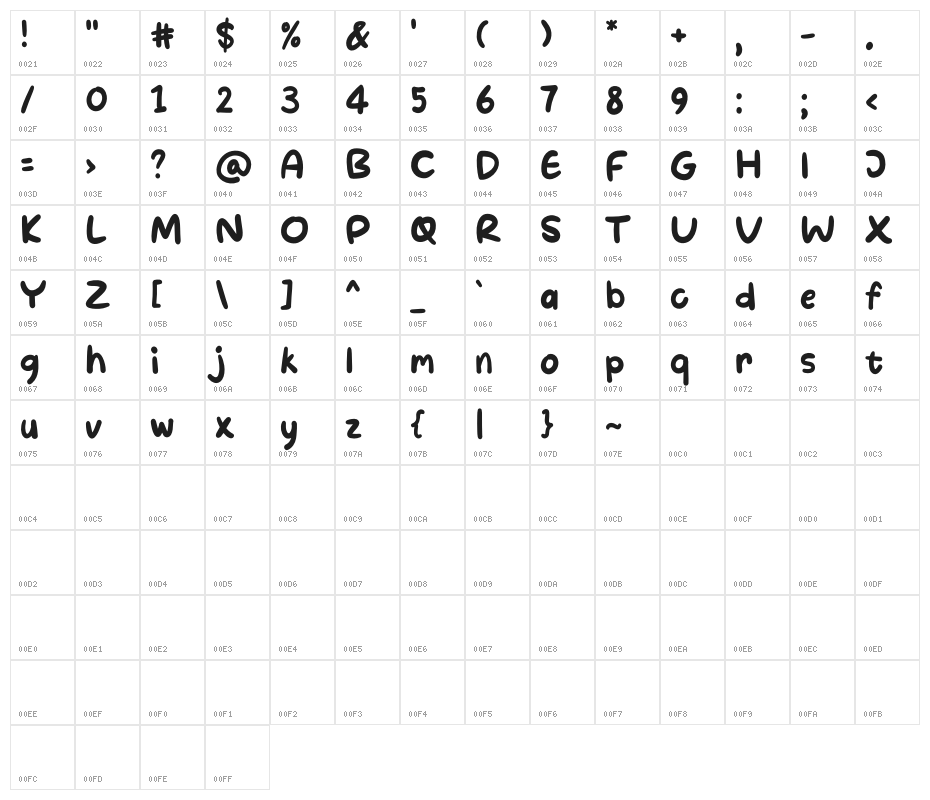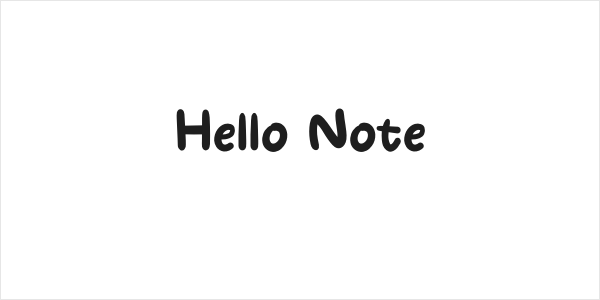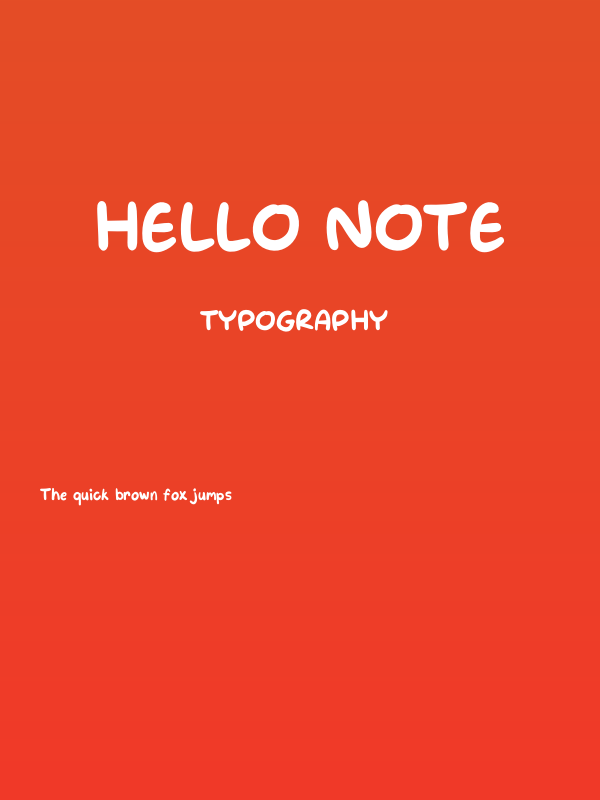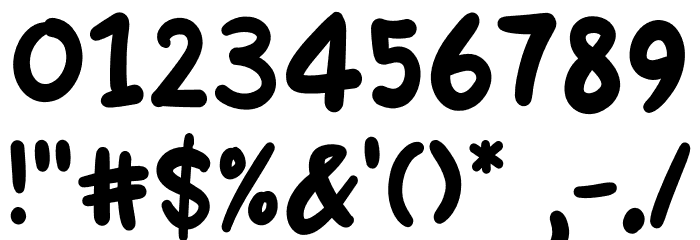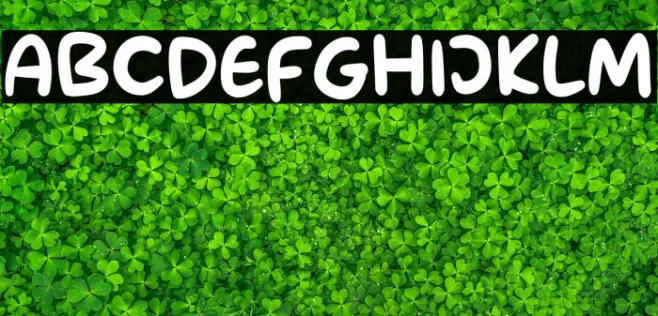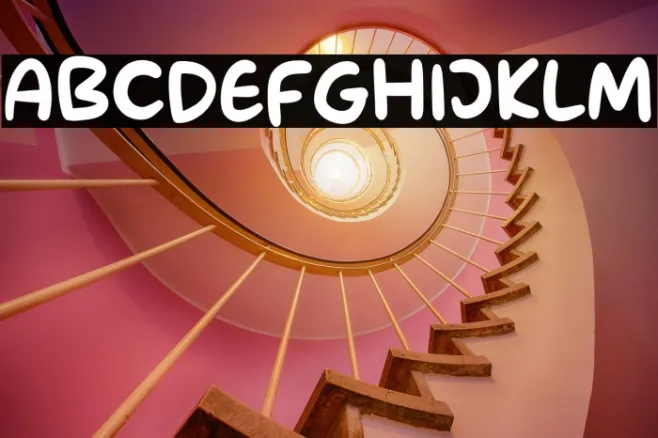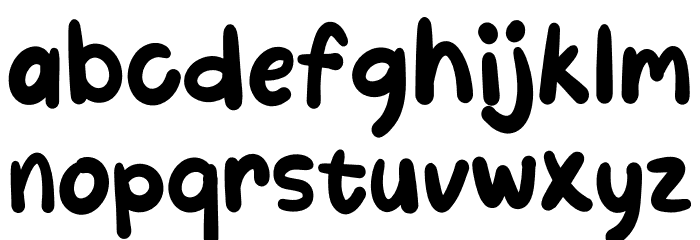
Hello Note Font
Hello Note Description
This playful and rounded font exudes a friendly and approachable vibe, making it ideal for informal and creative projects. The characters are bold and slightly irregular, giving them a hand-drawn appearance that adds a personal touch. The uppercase and lowercase letters maintain a consistent style, with smooth curves and a slightly exaggerated width that enhances readability. The numbers and special characters follow the same design principles, ensuring a cohesive look across all text elements. This font's unique style is perfect for projects that aim to convey warmth and creativity.
| Width | Expanded |
| Overall Style | Playful |
| Use Case | Headlines, Logos, Informal Text |
| Proposed Projects | Children's books, greeting cards, playful branding, and creative social media graphics. |